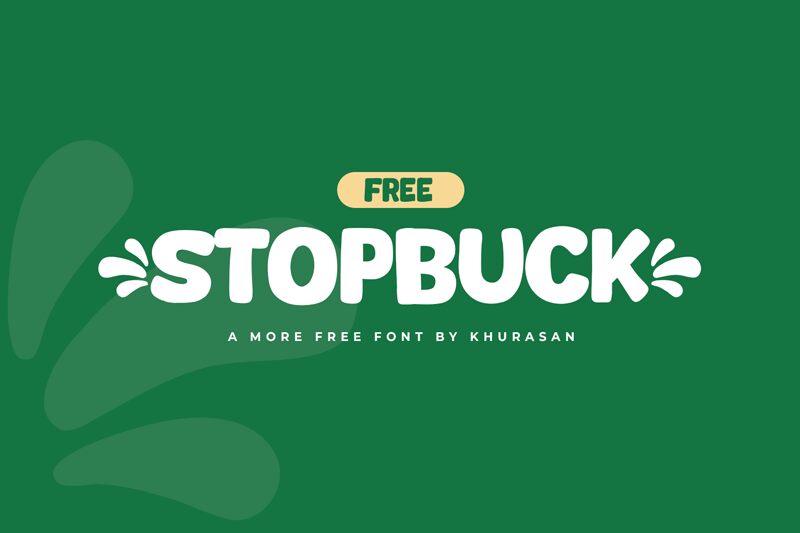
Stopbuck
Stopbuck, a playful masterpiece by the talented Khurasan, stands out with its cartoon-inspired style and extra-bold weight, instantly injecting character and vibrancy into any visual communication. Its robust letters boast a delightful roundness and an animated flair that capture attention with ease, making it a perfect choice for projects that demand a touch of whimsy without sacrificing bold presence.
The aesthetic appeal of Stopbuck lies in its balance between readability and fun; each letter is crafted to stand out while ensuring the overall text remains easily digestible. This display font shines in settings where engagement is key-think children's books, lively event posters, or dynamic branding elements.
Whether you're looking to infuse energy into your graphics or seeking a font that can carry the spirit of playfulness through your project's theme, Stopbuck is poised to deliver both style and substance in equal measure.